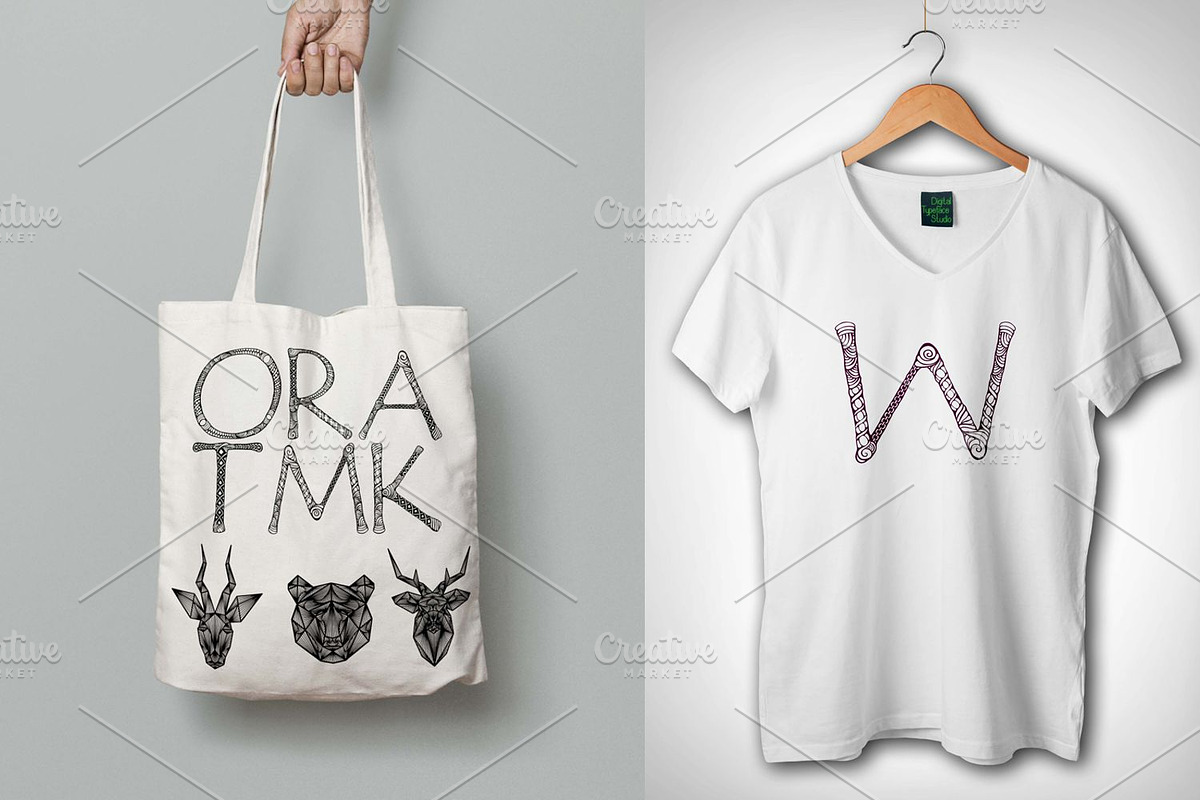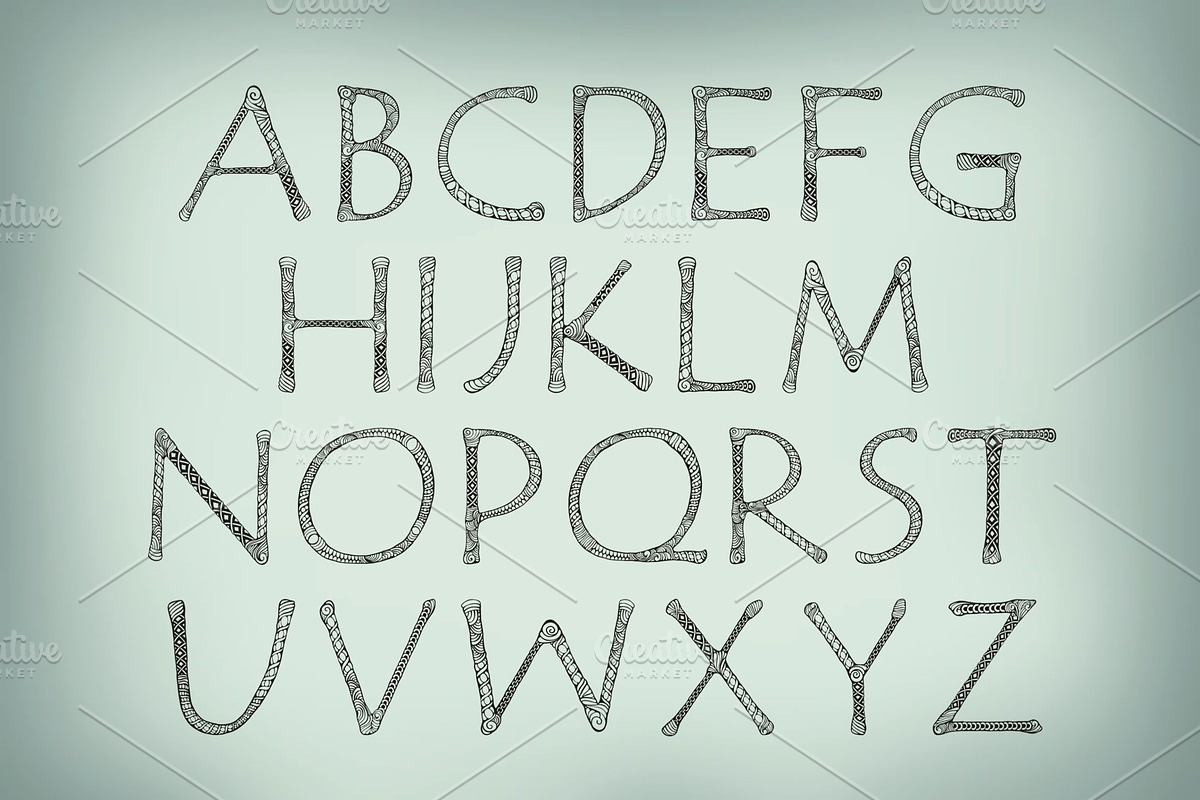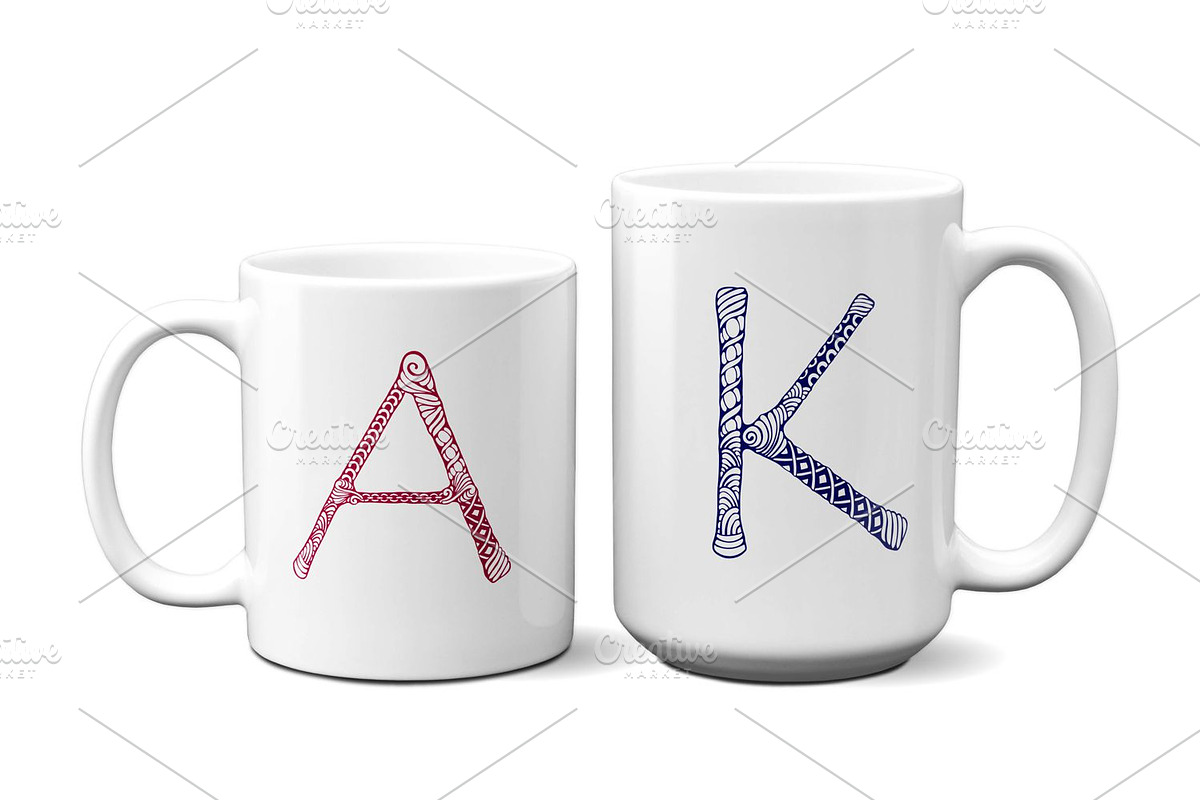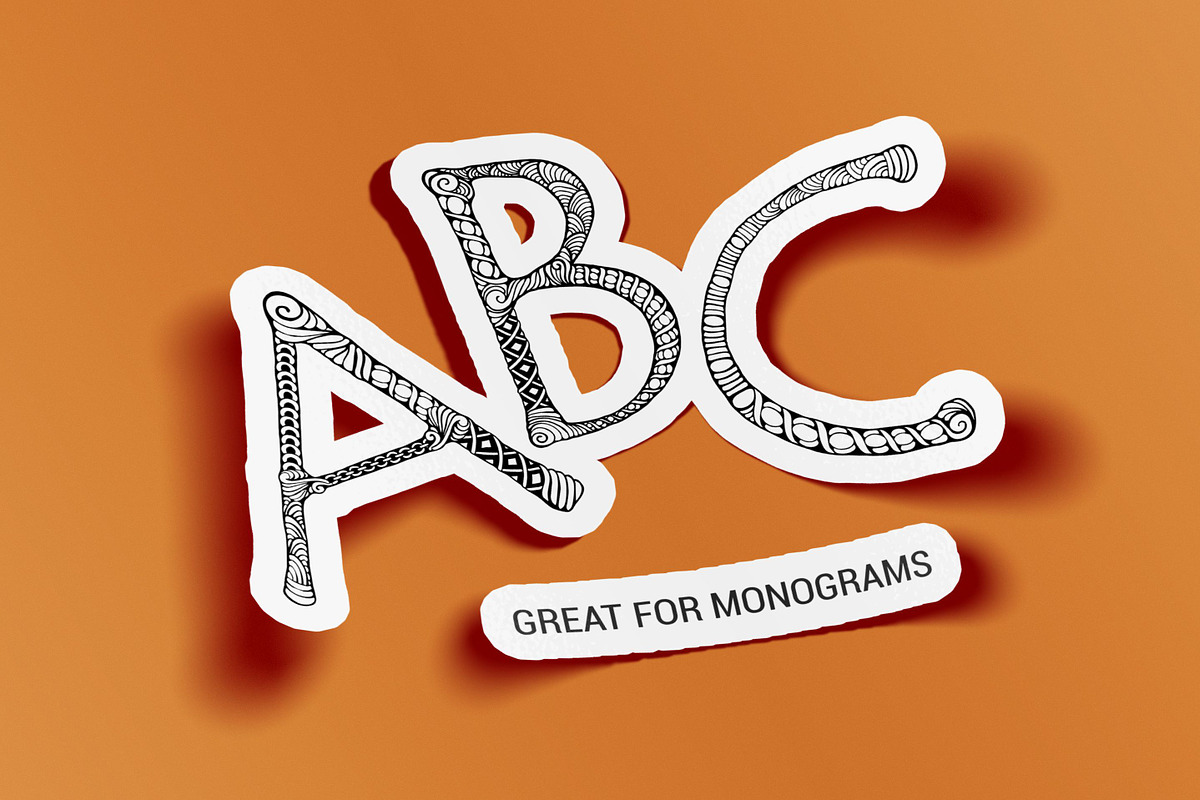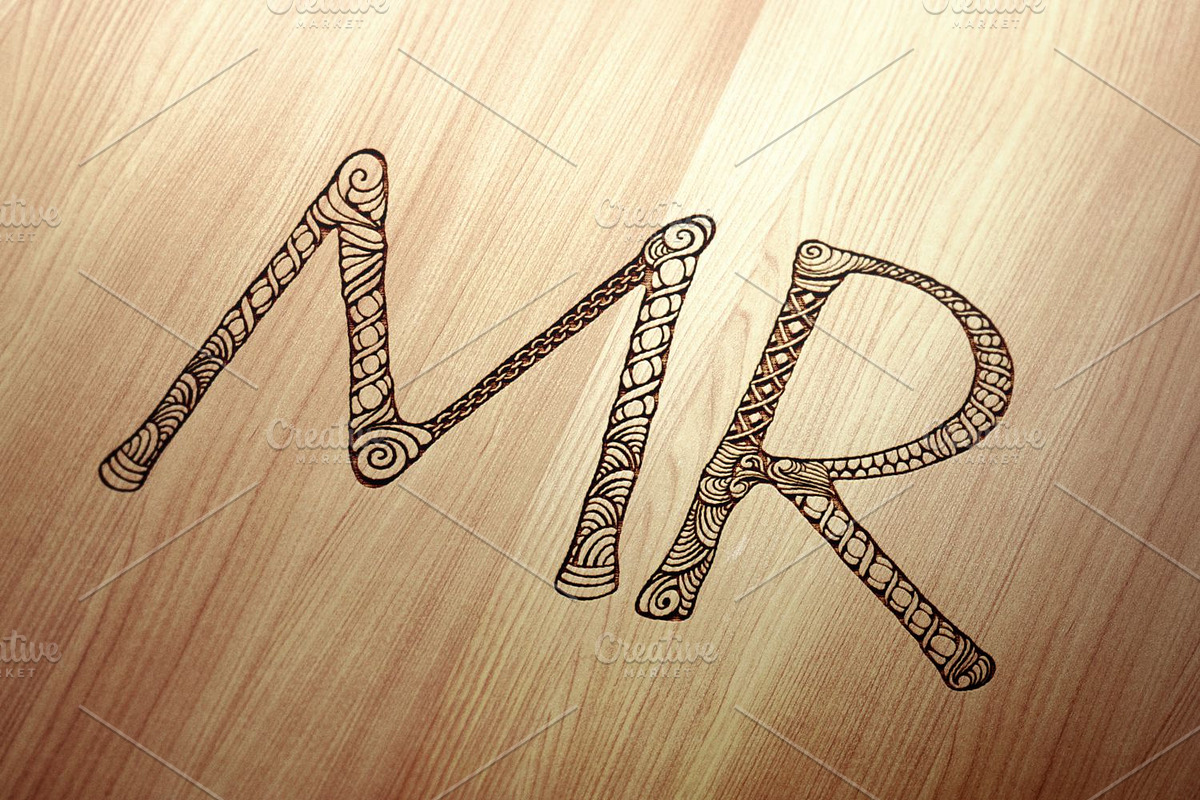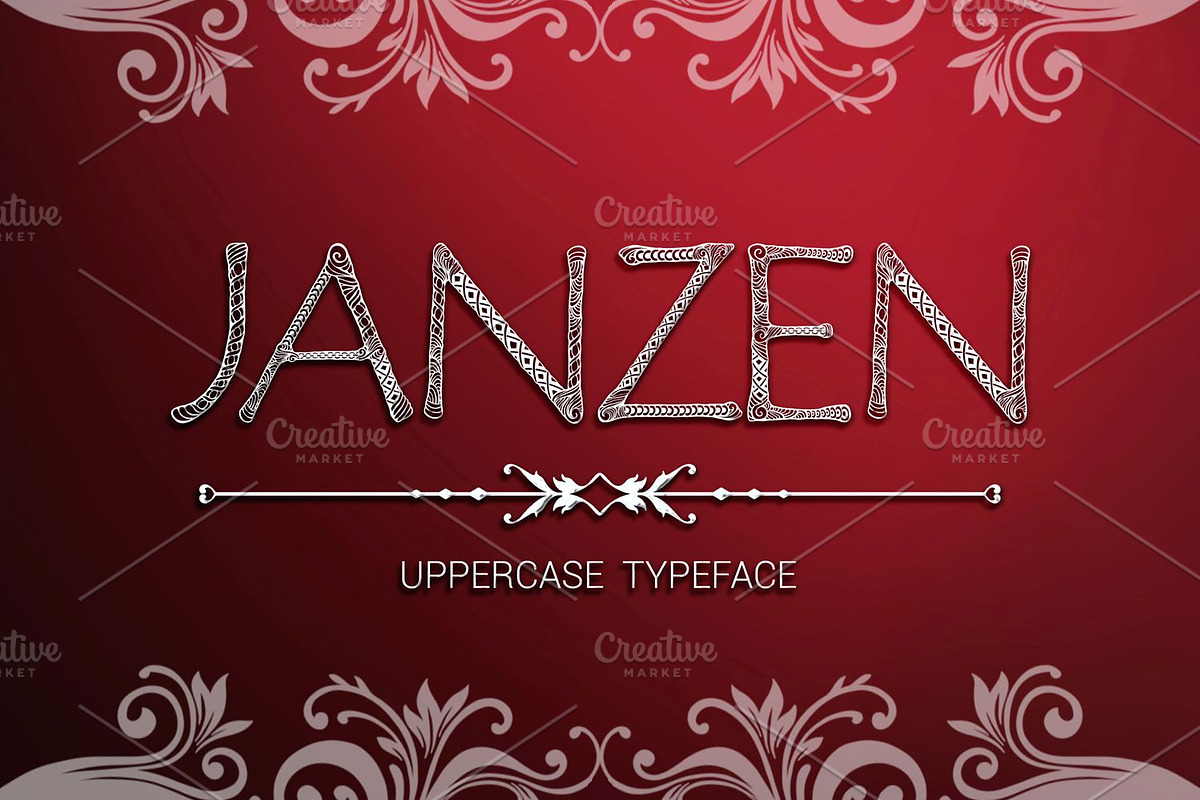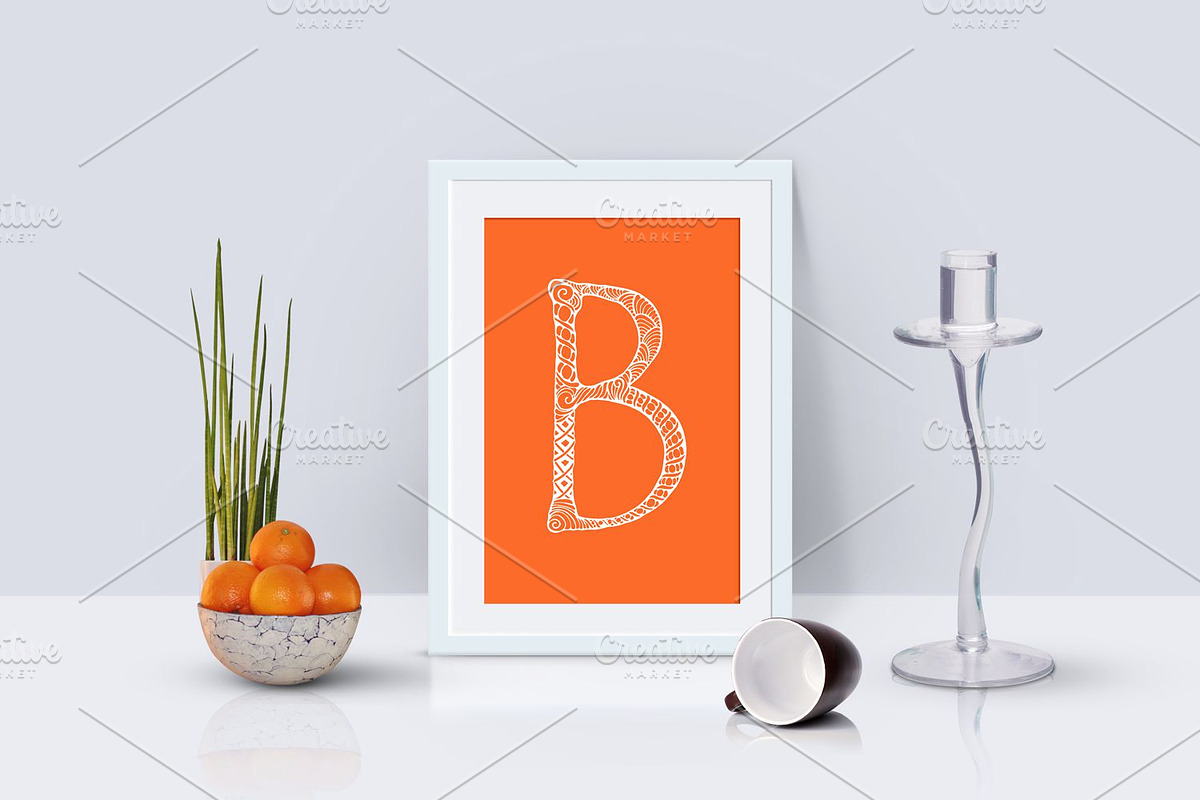
Janzen
Janzen is a carefully hand crafted uppercase font. Great for monograms, logos, branding, packages and more.
- Janzen is a carefully hand crafted uppercase font.
Janzen by Digital Typeface Studio fits naturally into Branding, posters, packaging, typography.